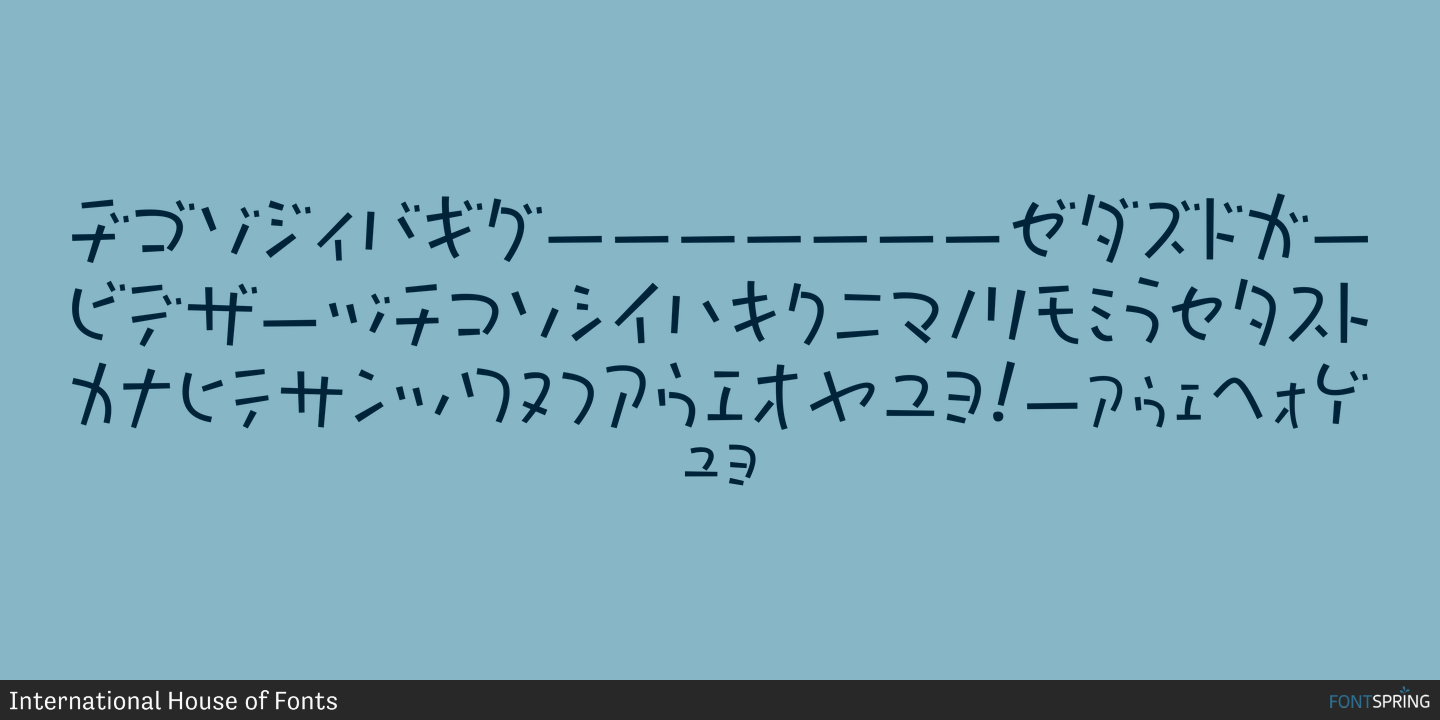
P22 Komusubi Katakana Regular
P22 Komusubi is a hand drawn and novelty font family. This typeface has six styles and was published by International House of Fonts.
Komusubi is a new font family from Hajime Kawakami. It features Latin as well as Katakana and Hiragana. This lively display font comes in regular and bold for all three alphabets.
In Japanese, Komusubi means to tie up a string or ribbon lightly. The Nipponian lyrical atmosphere of the word “Komusubi” reflects the casual tone of the font itself.
There is also a “Komusubi” rank of the Japanese SUMO.